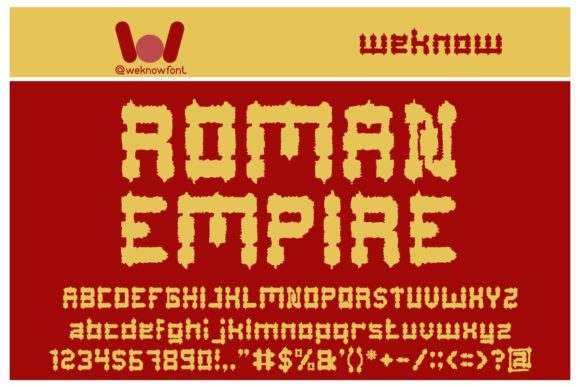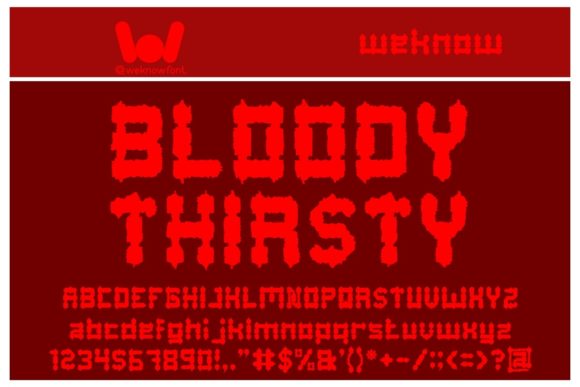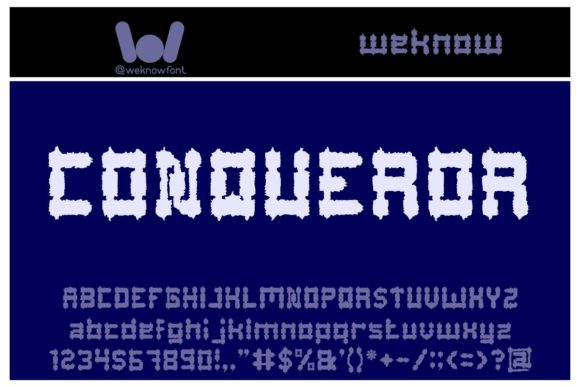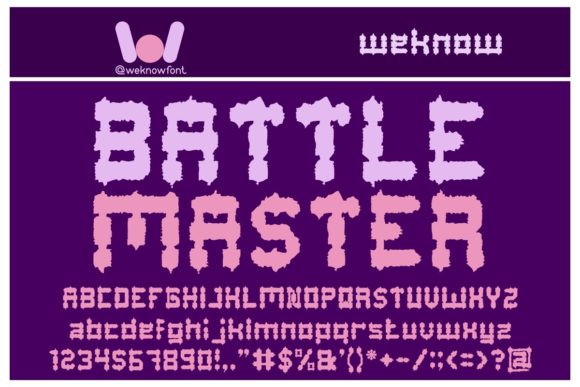
Enter the Barbarian Font, a modern and whimsical display font that’s designed to elevate your creative ideas to new heights. With its unique blend of style and sophistication, this font is perfect for designers who want to add a touch of excitement to their work. Whether you’re working on a logo, a poster, or a social media graphic, the Barbarian Font is sure to bring a level of professionalism and flair that will make your designs stand out from the crowd.
Barbarian Font Key Features
- Font Family: Barbarian is a sans-serif font family designed for use in digital and print media.
- Resolution: The font is optimized for high-resolution displays, making it ideal for use in digital media such as websites, mobile apps, and video games.
- Unique Characteristics: Barbarian features a bold, rugged design with sharp edges and geometric shapes, making it perfect for use in action-packed games, sci-fi, and fantasy themes.
- Language Support: Barbarian supports a wide range of languages, including Latin, Cyrillic, and Greek alphabets, making it a versatile font for global design projects.
Barbarian Font Review
Overall, I found the Barbarian Font to be an interesting choice for those looking for a bold, rustic design. Here’s my honest take:
- The font’s unique blend of rough and worn textures creates a visually appealing aesthetic.
- It’s ideal for use in designs that require a sense of ruggedness or historical flair.
- The font’s wide range of weights and styles offers flexibility in terms of typography and layout.
- The font may not be suitable for use in body text, as the letterforms can be quite dense and difficult to read at smaller sizes.
- Some characters, such as the ‘g’ and ‘p’, may not be as well-executed as others, potentially leading to readability issues.
- The font’s design may not be to everyone’s taste, as its rugged aesthetic can be off-putting to some users.
The Barbarian Font is a solid choice for designers who want to add a touch of ruggedness or historical flair to their projects. While it may not be suitable for all types of design, its unique aesthetic and wide range of weights and styles make it a versatile option. With careful use and consideration, the Barbarian Font can add depth and character to a design.
The Barbarian Font is perfect for creating a rugged, medieval-inspired look. Use it for designs related to fantasy, adventure, or historical themes. Some tips to get the most out of the Barbarian Font include:
- Pair it with bold, dark colors to enhance its rugged look.
- Use it for titles and headings to create a dramatic effect.
- Experiment with different font sizes and colors to achieve the desired look.